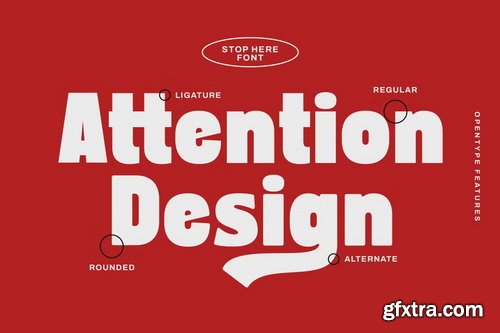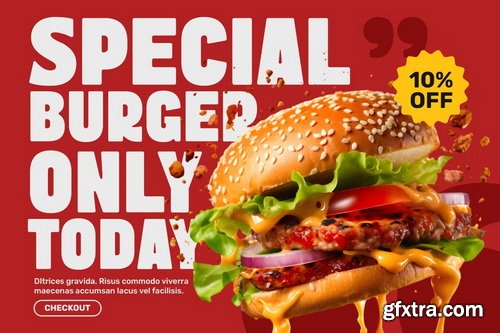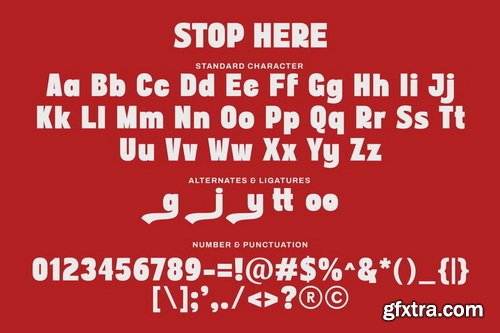
CreativeMarket - Stop Here Bold Sans Font
- Make a bold statement with Stop Here, a strong geometric sans serif font designed for high-impact visuals. With its thick, blocky structure and modern edges, this font is perfect for designers looking to create attention-grabbing posters, banners, billboards, headlines, product labels, or editorial layouts.
- Whether you're working on a print campaign or a bold web project, Stop Here gives you the power to elevate your message with clarity, confidence, and modern appeal.